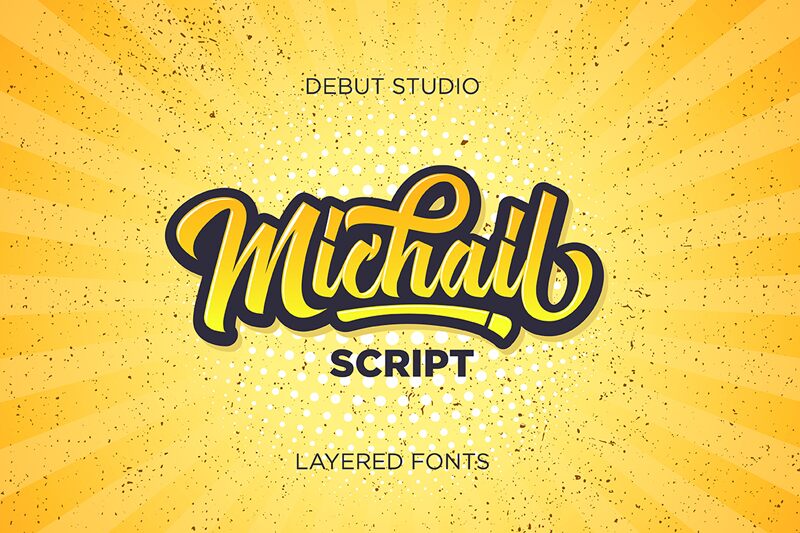
Michail Script is a captivating calligraphic font that exudes elegance and sophistication. Designed by Debut Studio, this font masterfully blends flowing, organic strokes with a touch of modern flair.
The smooth, interconnected letterforms create a sense of seamless fluidity, while the subtle variations in stroke thickness add depth and character to the overall aesthetic. Michail Script's versatility shines through, making it an excellent choice for a wide range of applications, from luxury branding and high-end editorial design to bespoke stationery and wedding invitations.
Its timeless charm and distinctive personality effortlessly elevate any project, leaving a lasting impression on the viewer.